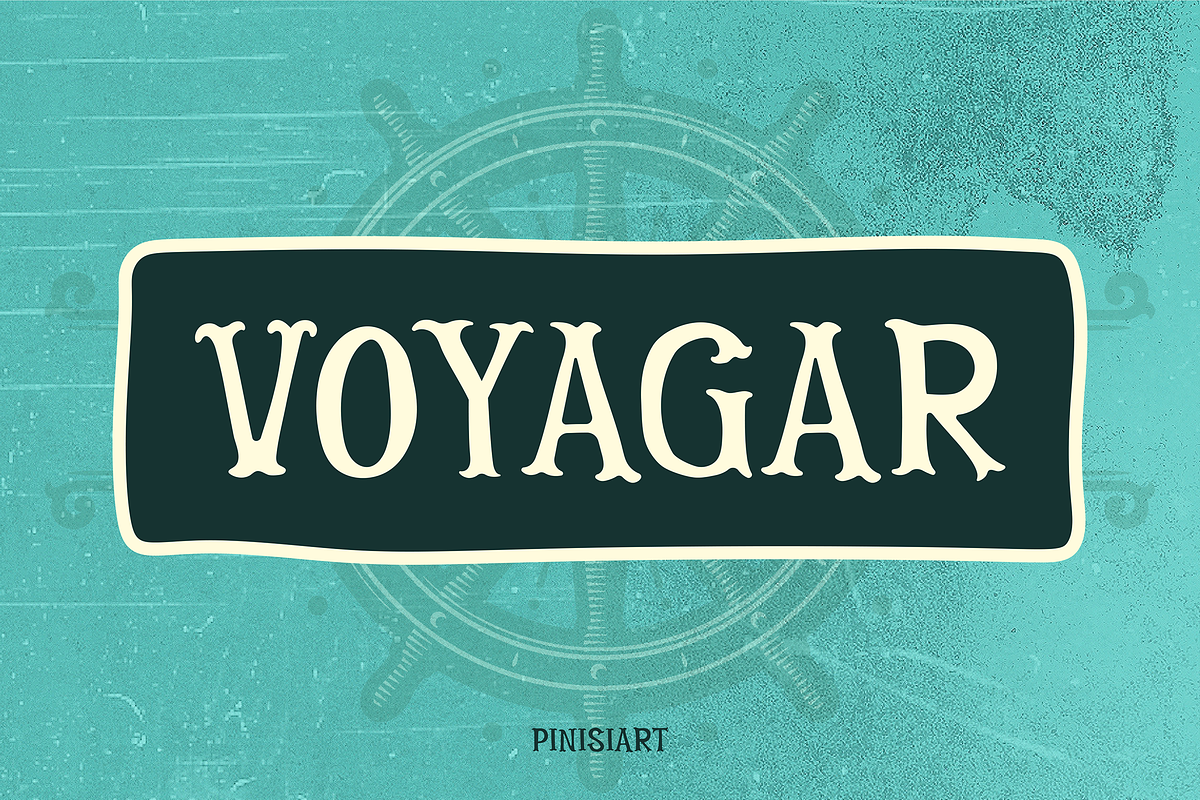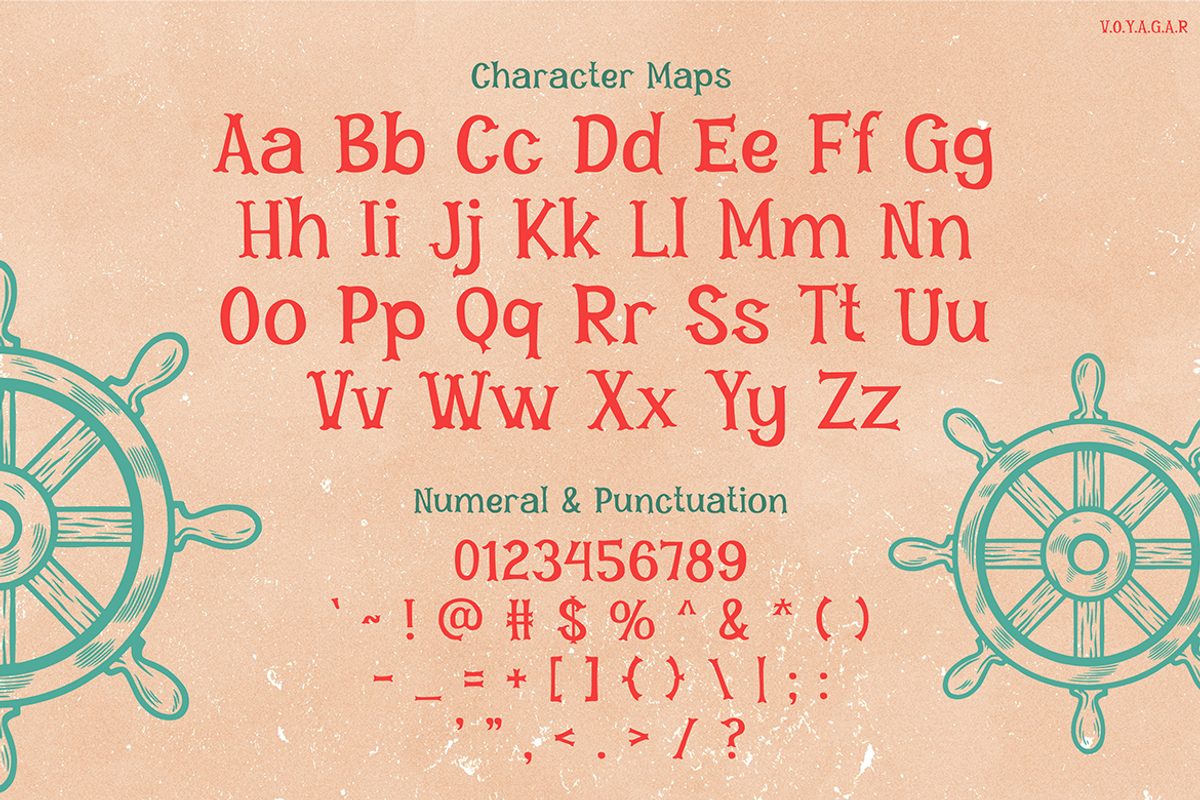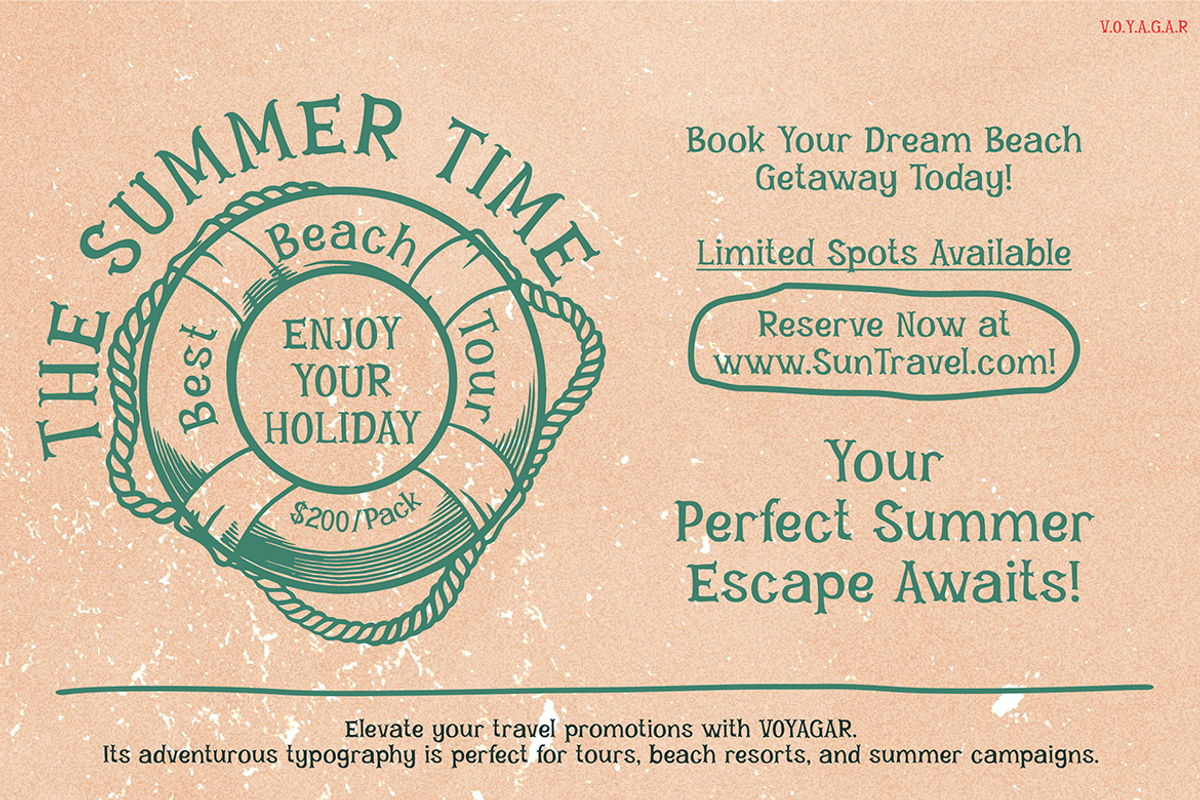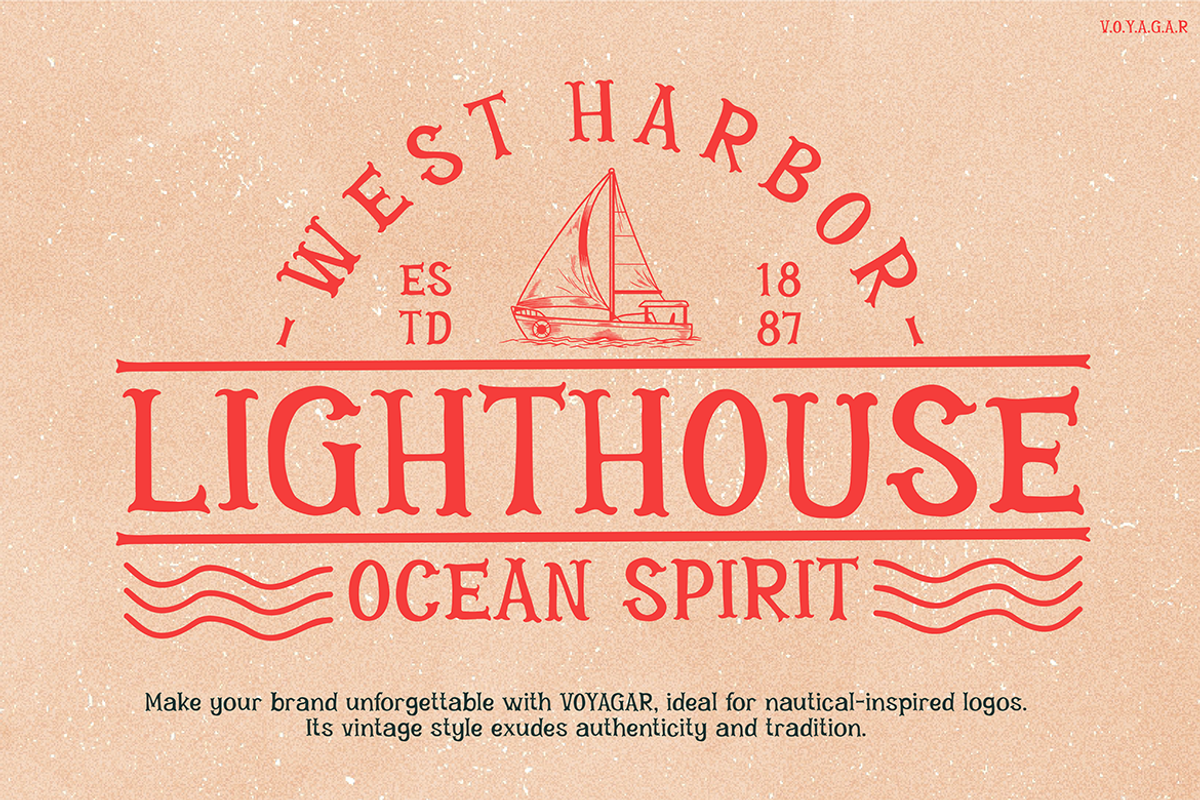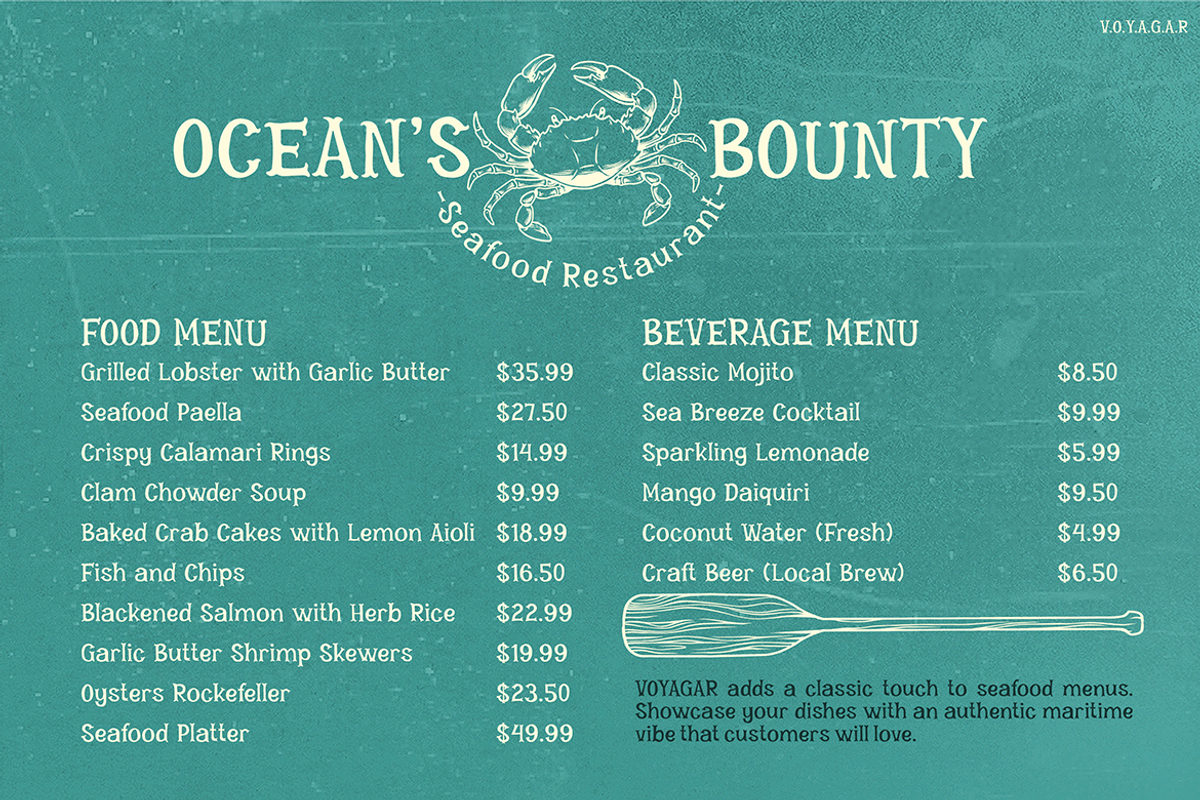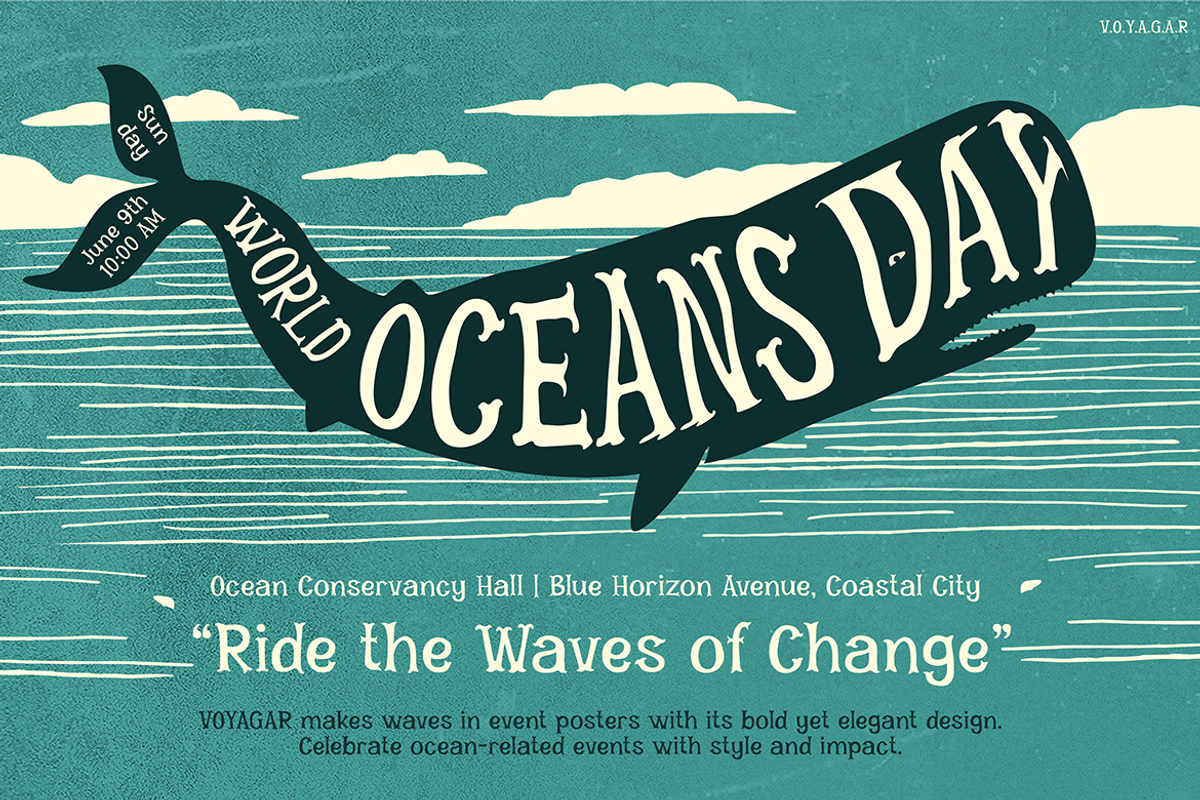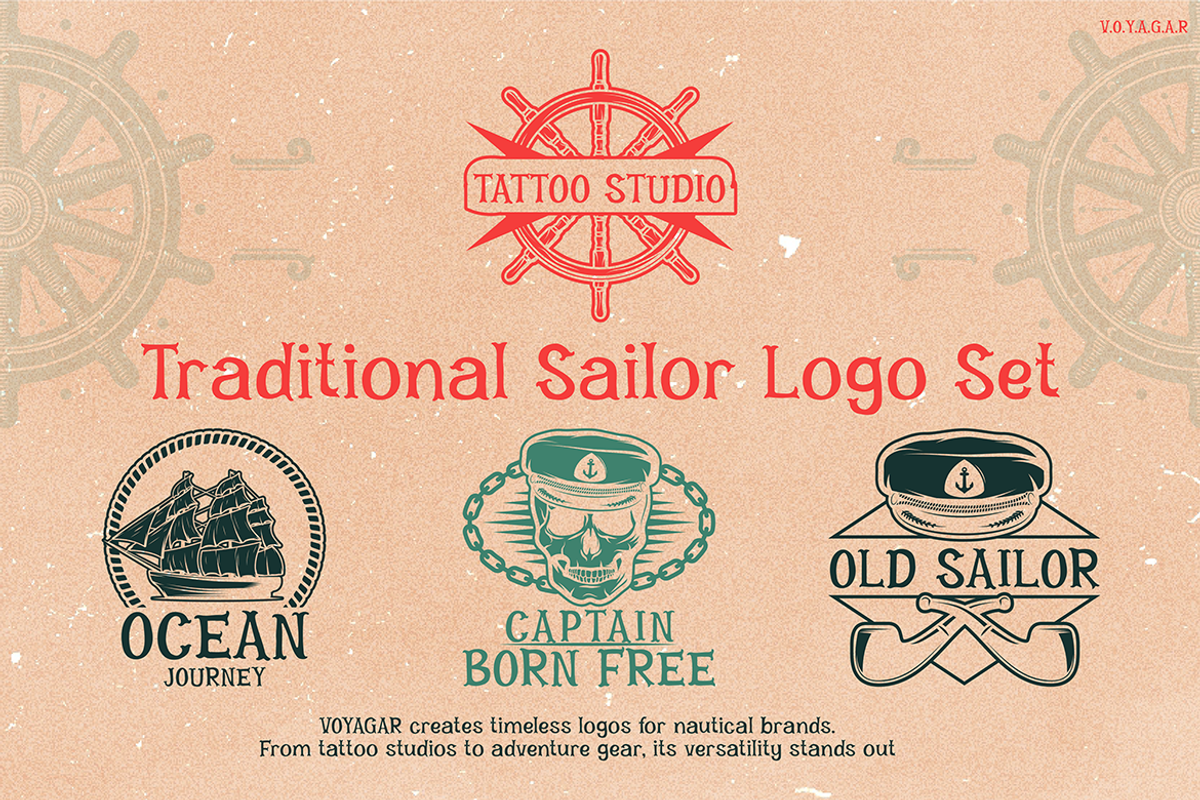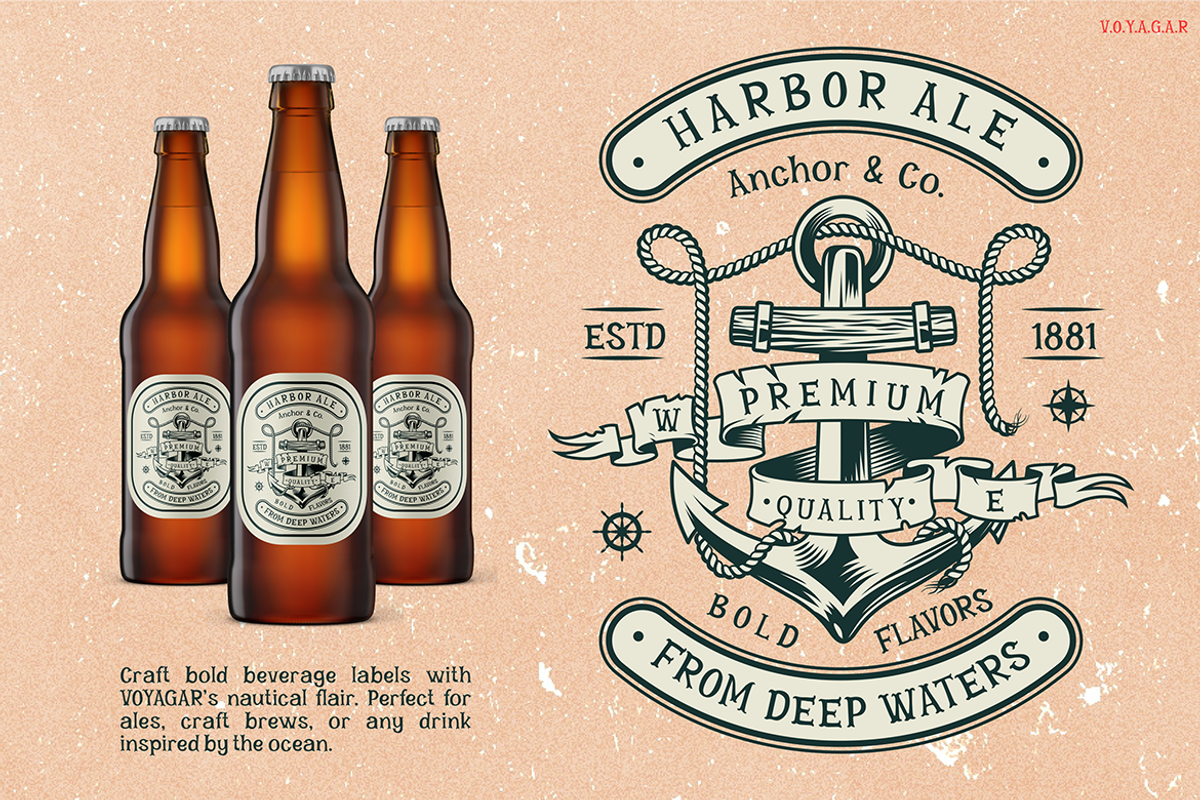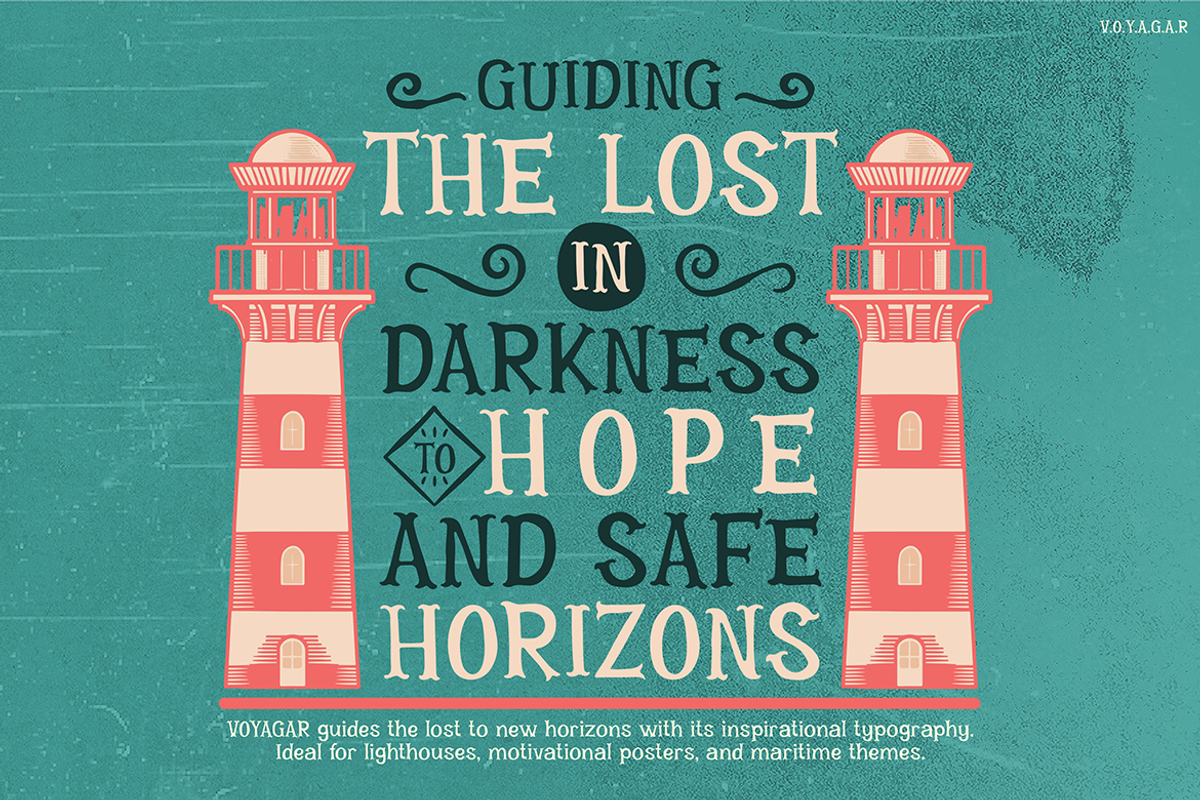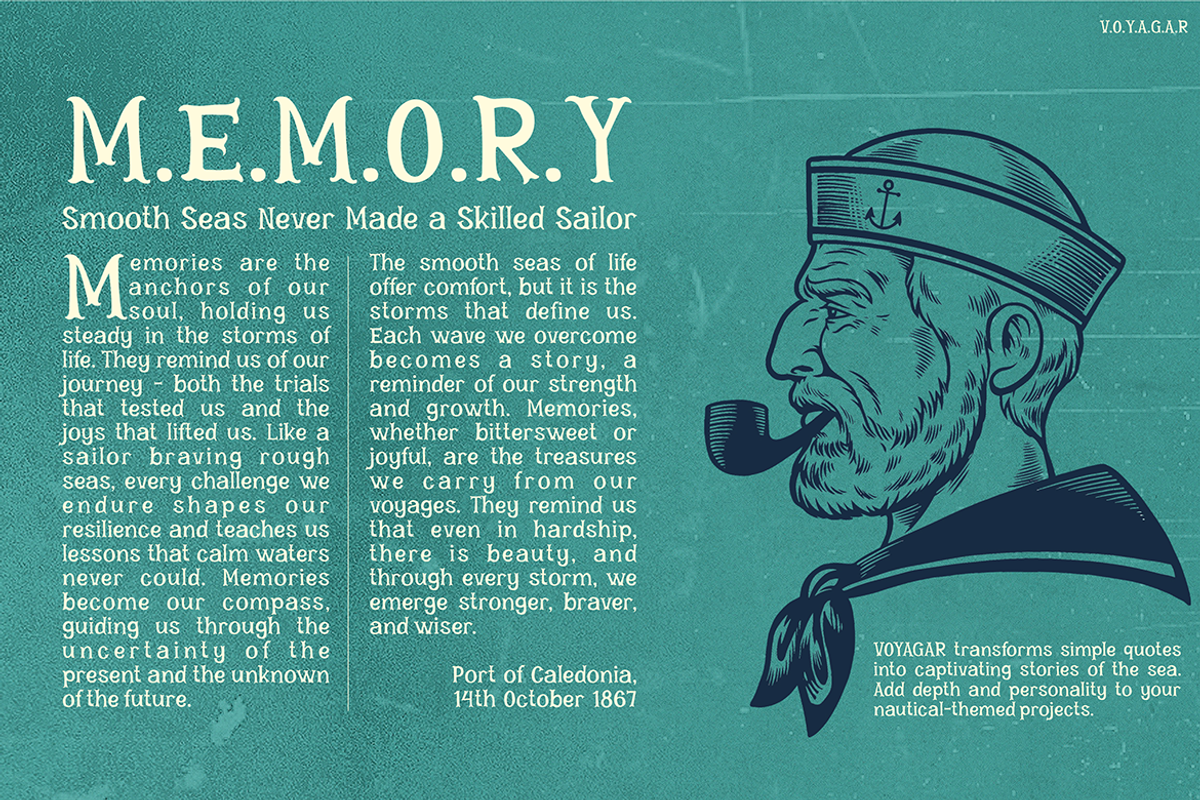
VOYAGAR
Retro Font VOYAGAR evokes a sense of adventure and timeless elegance with its charming and nostalgic design. The font features smooth curves and decorative serifs, blending a vintage aesthetic with modern functionality. Its unique character shapes transport you to a bygone era of handwritten travel logs, maritime expeditions, and retro signage. The natural balance between its bold and whimsical elements makes VOYAGAR an ideal choice for designs that capture both personality and professionalism.
This font adds an old-world charm to your projects while ensuring readability and adaptability. The subtle imperfections and hand-drawn essence give it a distinct personality that resonates with audiences seeking authenticity and creativity. Whether you design logos, packaging, or digital banners, VOYAGAR adapts seamlessly to both print and digital mediums. Its retro appeal shines through its clean yet artistic feel, bringing life to any creative concept.